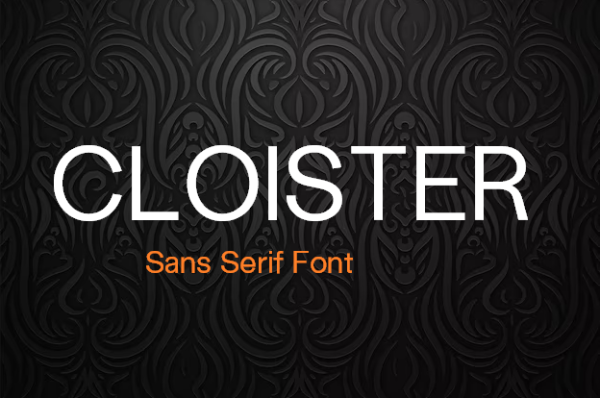
Cloister Font
Cloister Font, is a sans serif that pays homage to a plethora of typefaces. It’s mostly inspired by the closed counters of Genzsch and Heyse’s Lapidar, and its underlying structure borrows from popular neo-grotesks, and fonts designed for legibility on the screen.
The name Cloister refers to the typeface’s closed off anatomy, and it also refers to its origins. It was created during the Corona Virus Lockdown.